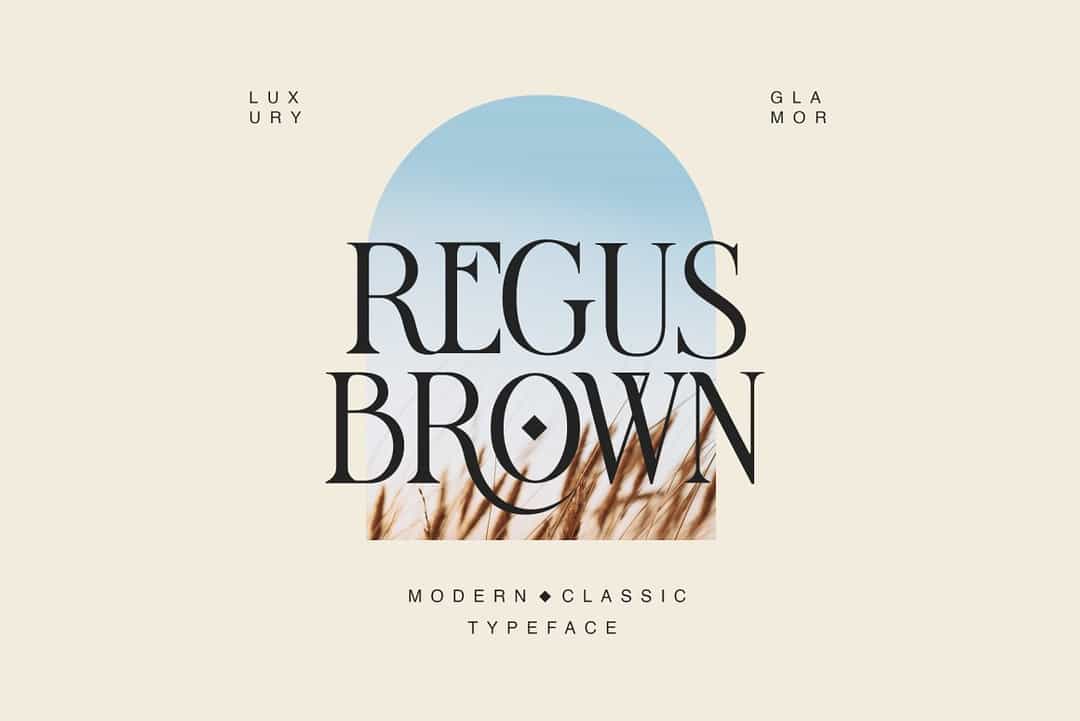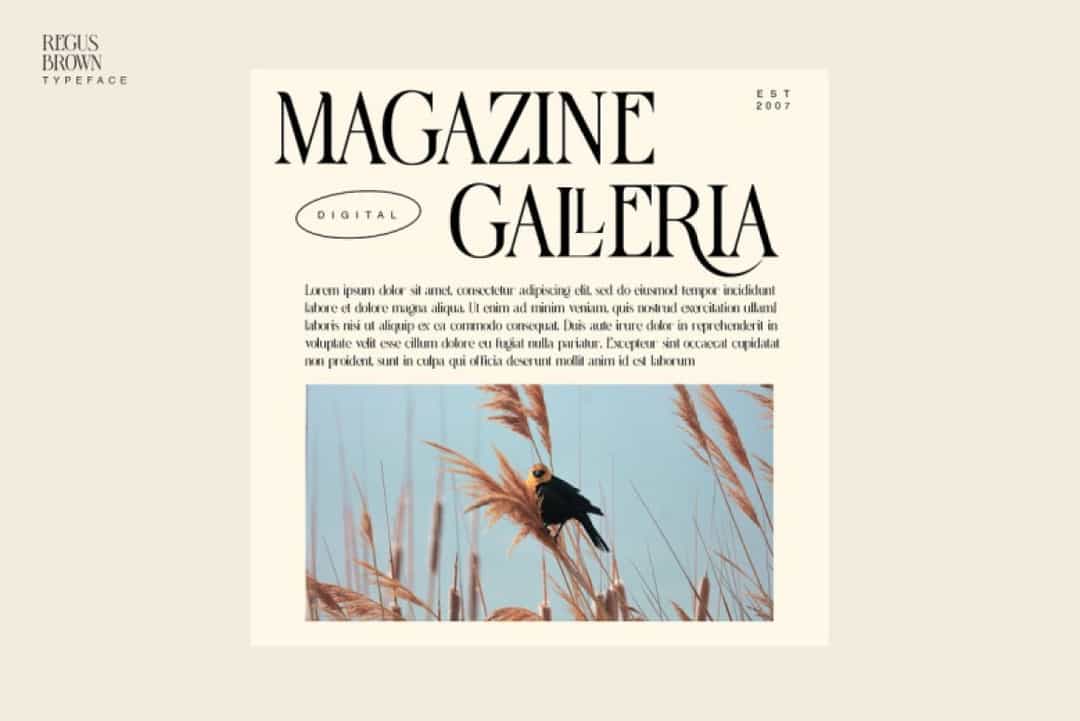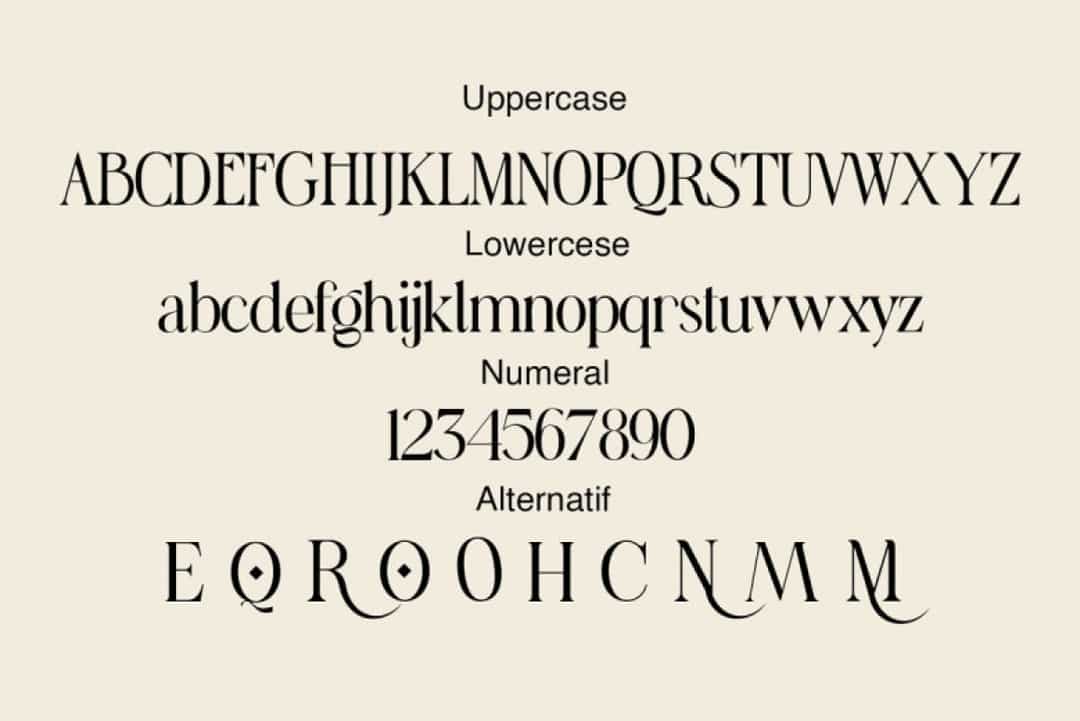
Regus Brown is a contemporary classic, tall serif font. This elegant font can be used to create branding, logos, invitations, stationery wedding themes or social media posts!